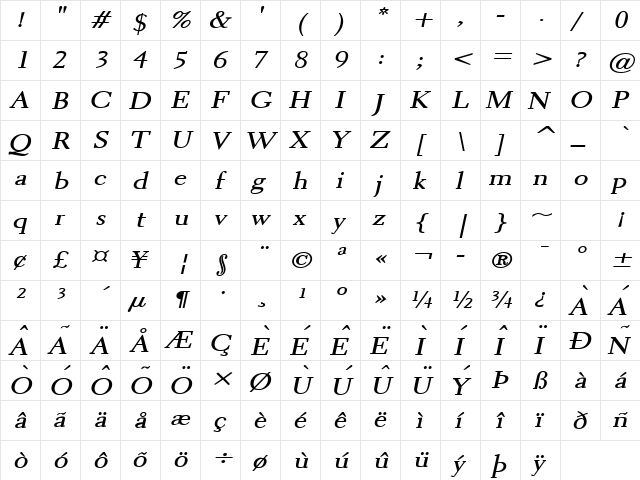
Transit 2 Wide BoldItalic
Design Context for Transit 2 Wide Typeface
Transit 2 Wide takes a measured approach to typography — its balanced proportions and neutral character make it a reliable workhorse for both digital and print work. The slanted form adds forward momentum and visual energy. The heavy weight commands attention and anchors typographic hierarchies.